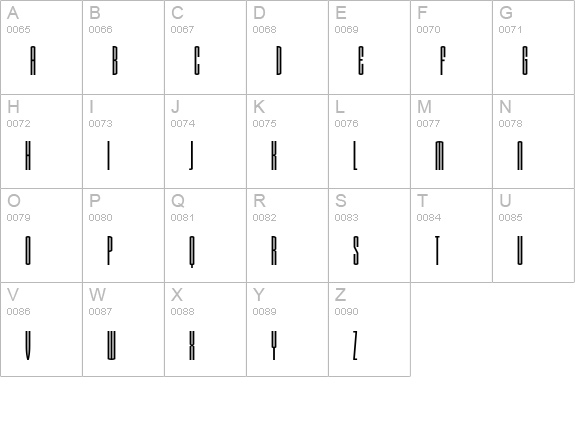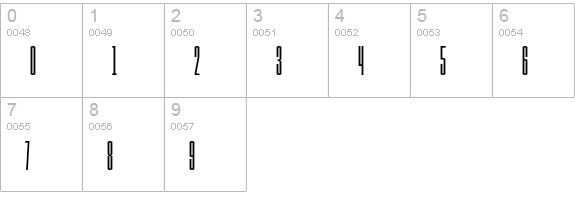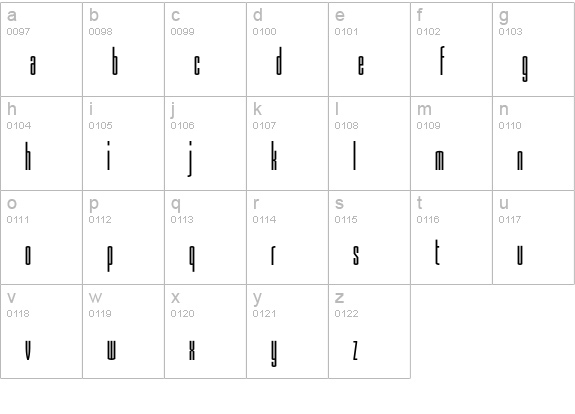
Armada-RegularCompressed is a sleek and modern typeface that combines elegance with functionality. With its compressed spacing and unique letterforms, this font is perfect for projects that require a contemporary and professional touch. The clean lines and sharp angles of Armada-RegularCompressed make it stand out while remaining highly legible. Whether you are designing a website, creating a logo, or working on a print project, Armada-RegularCompressed is a versatile choice that will elevate your designs. Its compact design allows for efficient use of space without sacrificing readability, making it ideal for headlines, titles, and other prominent text. Best of all, Armada-RegularCompressed is completely free to download at FontsMarket.com. This means you can access this high-quality font without any cost, making it a valuable addition to your design toolkit. Don't miss out on the opportunity to enhance your projects with Armada-RegularCompressed today!